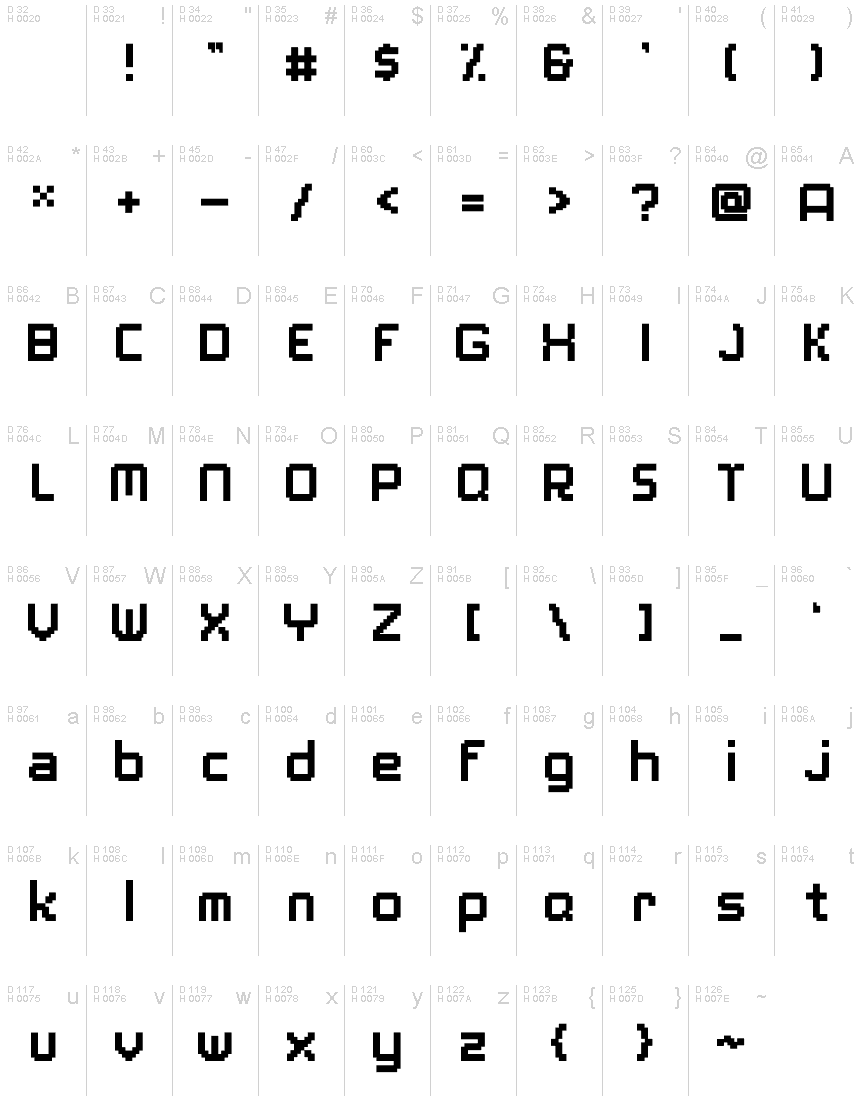
PlayMeGames Demo
Play.Me.Games font is the best pixel display font. it is suitable for various print media designs, online, games, and more.
i thinking about 16bit games